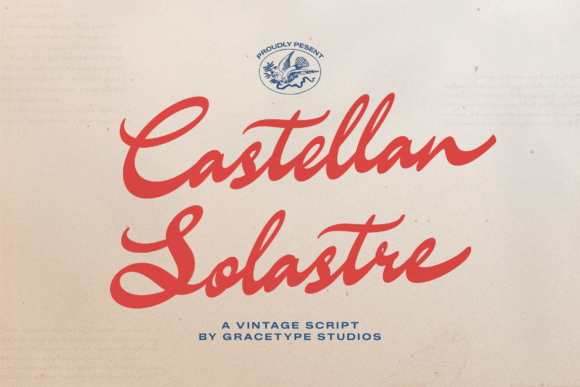
Discover the Timeless Elegance of Castellan Solastre Font
In the world of typography, few fonts capture the essence of mid-century hand-lettering as beautifully as the Castellan Solastre font. This stunning vintage script embodies the classic luxury and old-world charm that designers and crafters crave for their high-end projects. With its sophisticated slant and smooth, rhythmic connections, the Castellan Solastre typeface is the perfect choice for those seeking to add a touch of elegance and sophistication to their designs.
The Characteristics of Castellan Solastre Font
The Castellan Solastre font boasts a range of characteristics that make it a premier choice for wedding invitations, premium spirit labels, and heritage brand identities. Its bold, sweeping curves ensure that it remains the focal point of any design, from elegant logo marks to high-end editorial spreads. The font’s smooth connections and sophisticated slant give it an air of refinement and luxury, making it perfect for projects that require a touch of classic sophistication.
Uses for Castellan Solastre Font
The versatility of the Castellan Solastre font makes it suitable for a wide range of applications. Here are a few ways designers and crafters can use this beautiful typeface:
- Wedding Invitations: Add a touch of elegance and sophistication to your wedding invitations with the Castellan Solastre font. Its classic luxury and old-world charm make it perfect for formal wedding stationery.
- Premium Spirit Labels: Elevate your premium spirit labels with the flowing grace of the Castellan Solastre font. Its bold, sweeping curves and sophisticated slant make it perfect for high-end branding.
- Heritage Brand Identities: Give your heritage brand identity a touch of classic sophistication with the Castellan Solastre font. Its timeless elegance and old-world charm make it perfect for brands that want to convey a sense of history and tradition.
Pairing Castellan Solastre Font with Other Design Elements
To get the most out of the Castellan Solastre font, it’s essential to pair it with other design elements that complement its classic luxury and old-world charm. Here are a few suggestions:
- Grainy Paper Textures: Add a touch of tactility and nostalgia to your design by pairing the Castellan Solastre font with grainy paper textures. This combination creates a beautiful contrast between the smooth, flowing curves of the font and the rough, organic texture of the paper.
- Classic Serif Fonts: Pair the Castellan Solastre font with classic serif fonts to create a sophisticated and elegant design. The contrast between the script and serif fonts creates a beautiful visual hierarchy that draws the eye through the design.
Why Choose Castellan Solastre Font?
With so many fonts available, why choose the Castellan Solastre font for your next project? Here are a few reasons:
- Timeless Elegance: The Castellan Solastre font embodies the timeless elegance of mid-century hand-lettering, making it perfect for projects that require a touch of classic sophistication.
- Craftsmanship: The font’s smooth connections and sophisticated slant give it an air of craftsmanship and attention to detail, making it perfect for projects that require a high level of quality and sophistication.
- Artistic Expression: The Castellan Solastre font feels as much like a piece of art as it does a tool for communication. Its bold, sweeping curves and smooth connections make it perfect for designers and crafters who want to add a touch of elegance and sophistication to their designs.
In conclusion, the Castellan Solastre font is a stunning vintage script that embodies the timeless elegance of mid-century hand-lettering. Its sophisticated slant and smooth, rhythmic connections make it perfect for projects that require a touch of classic luxury and old-world charm. Whether you’re designing wedding invitations, premium spirit labels, or heritage brand identities, the Castellan Solastre font is a premier choice for adding a touch of elegance and sophistication to your designs. So why not elevate your next prestige project with the flowing grace of the Castellan Solastre font?